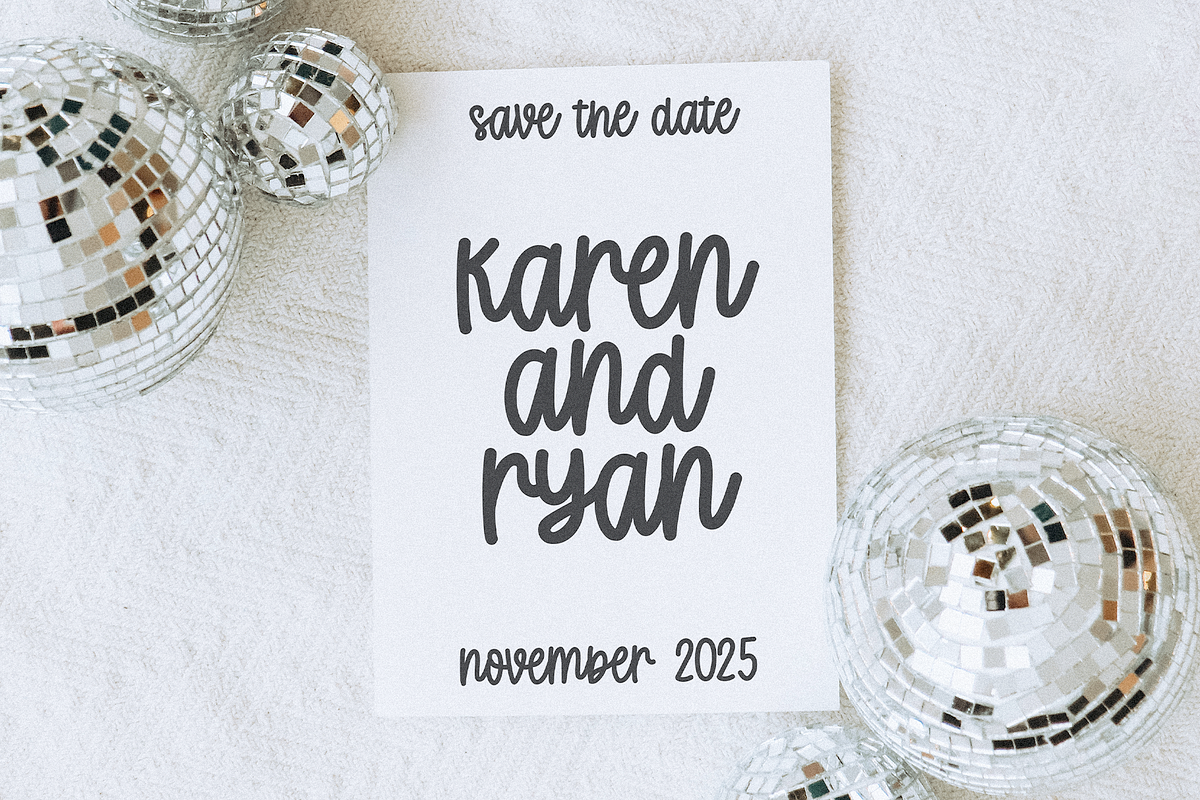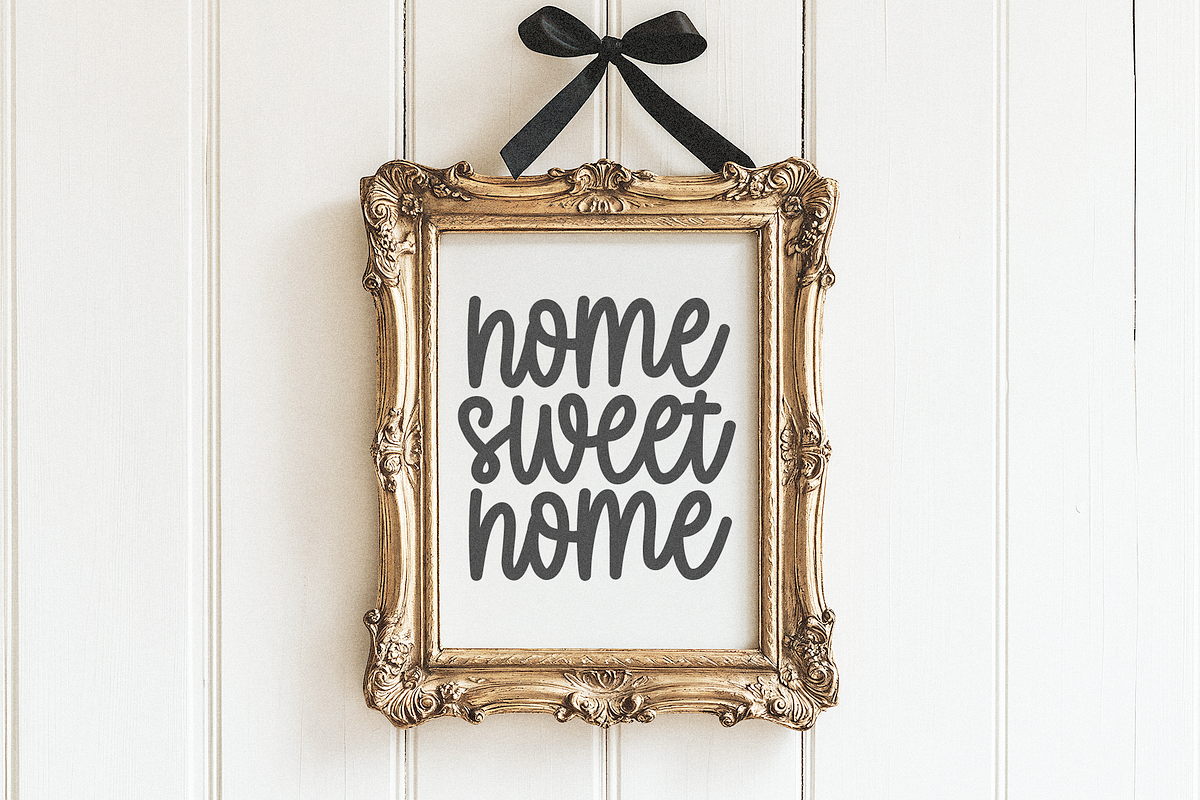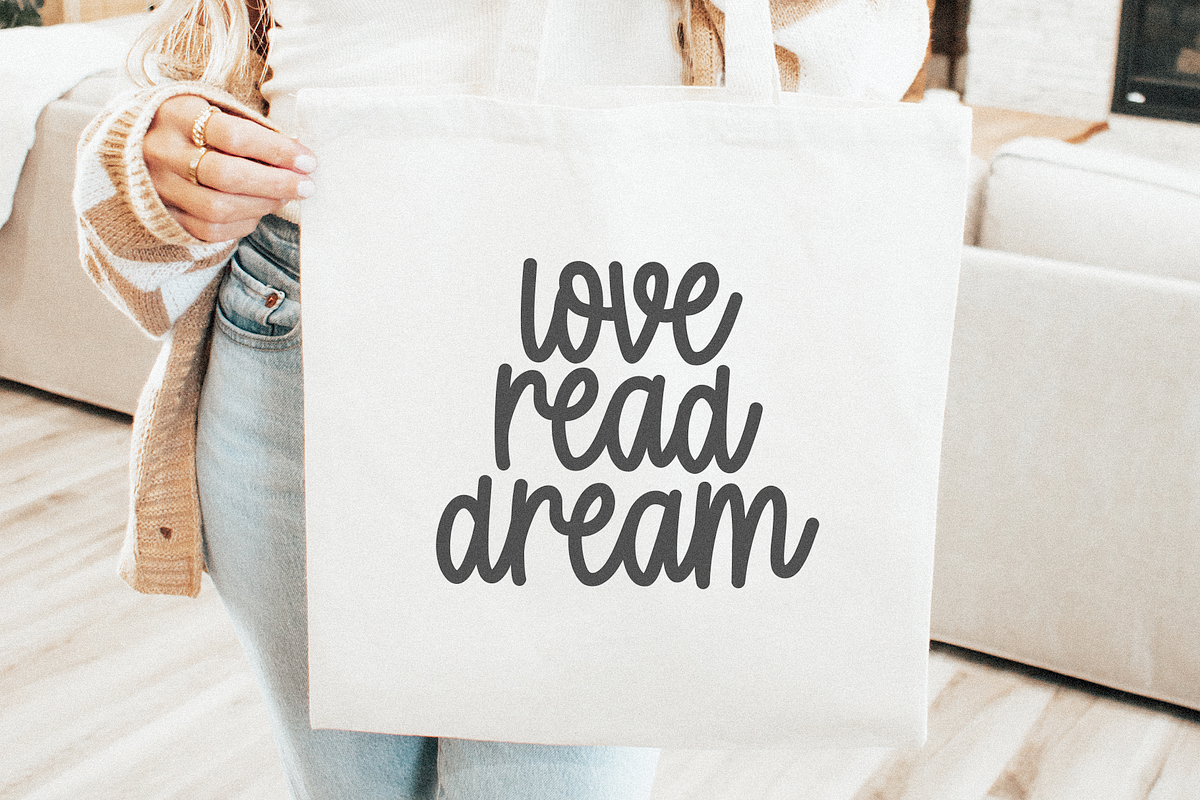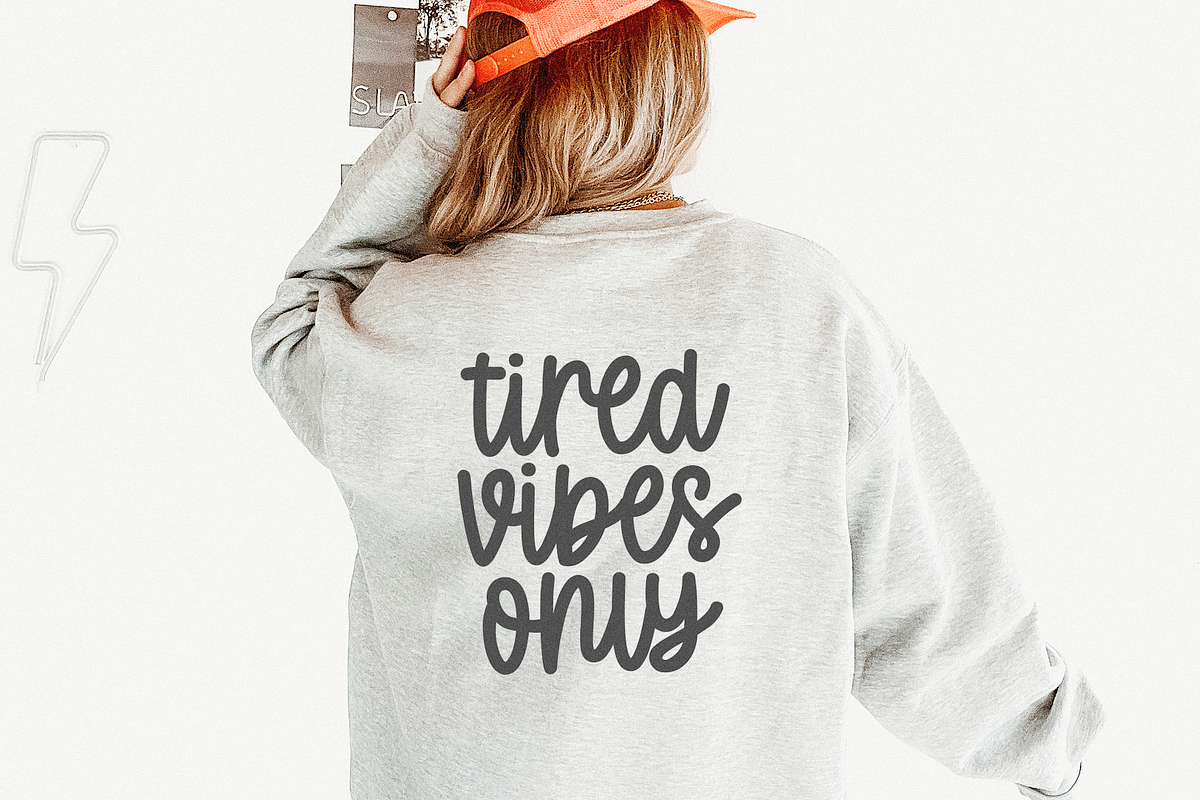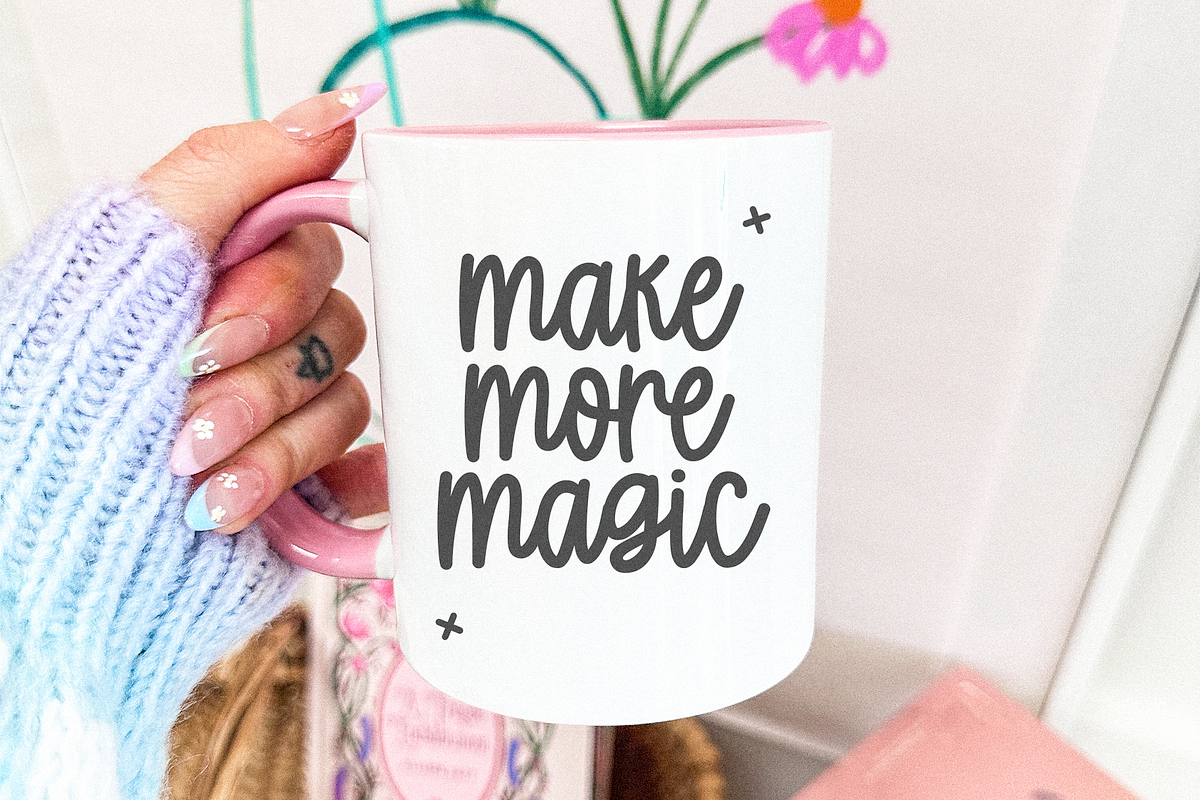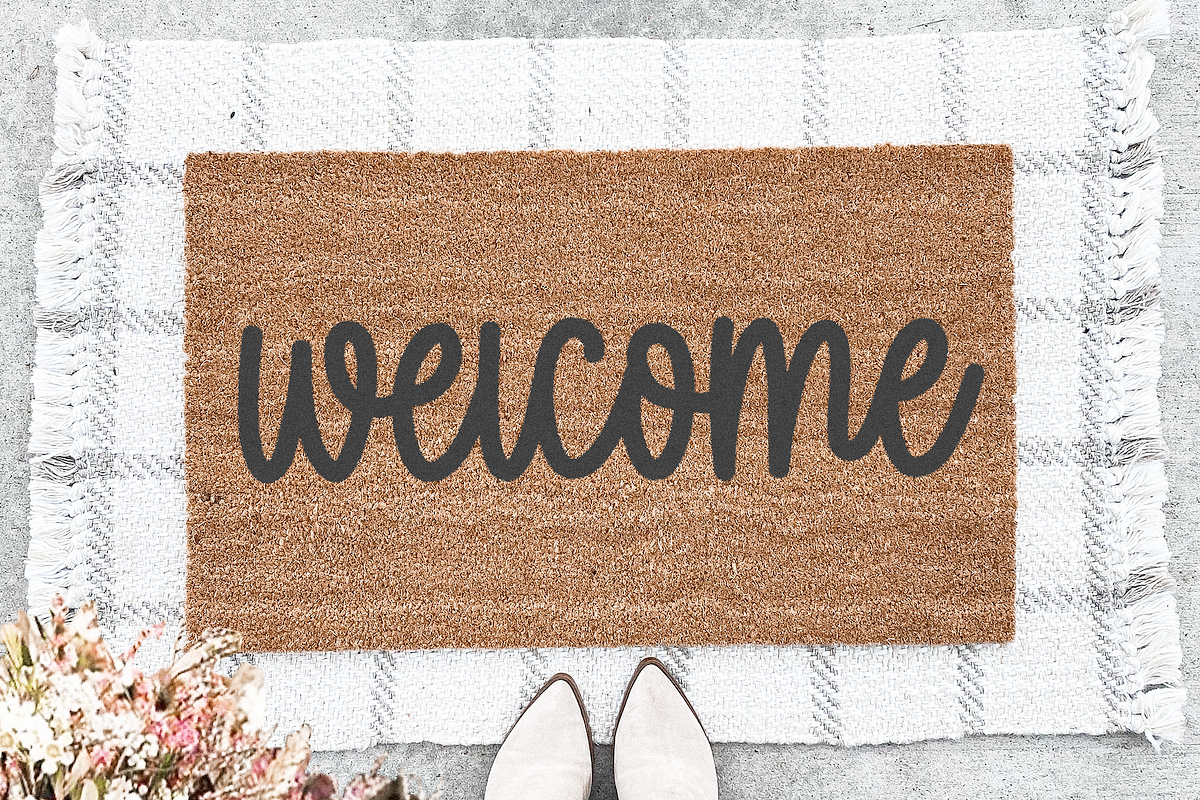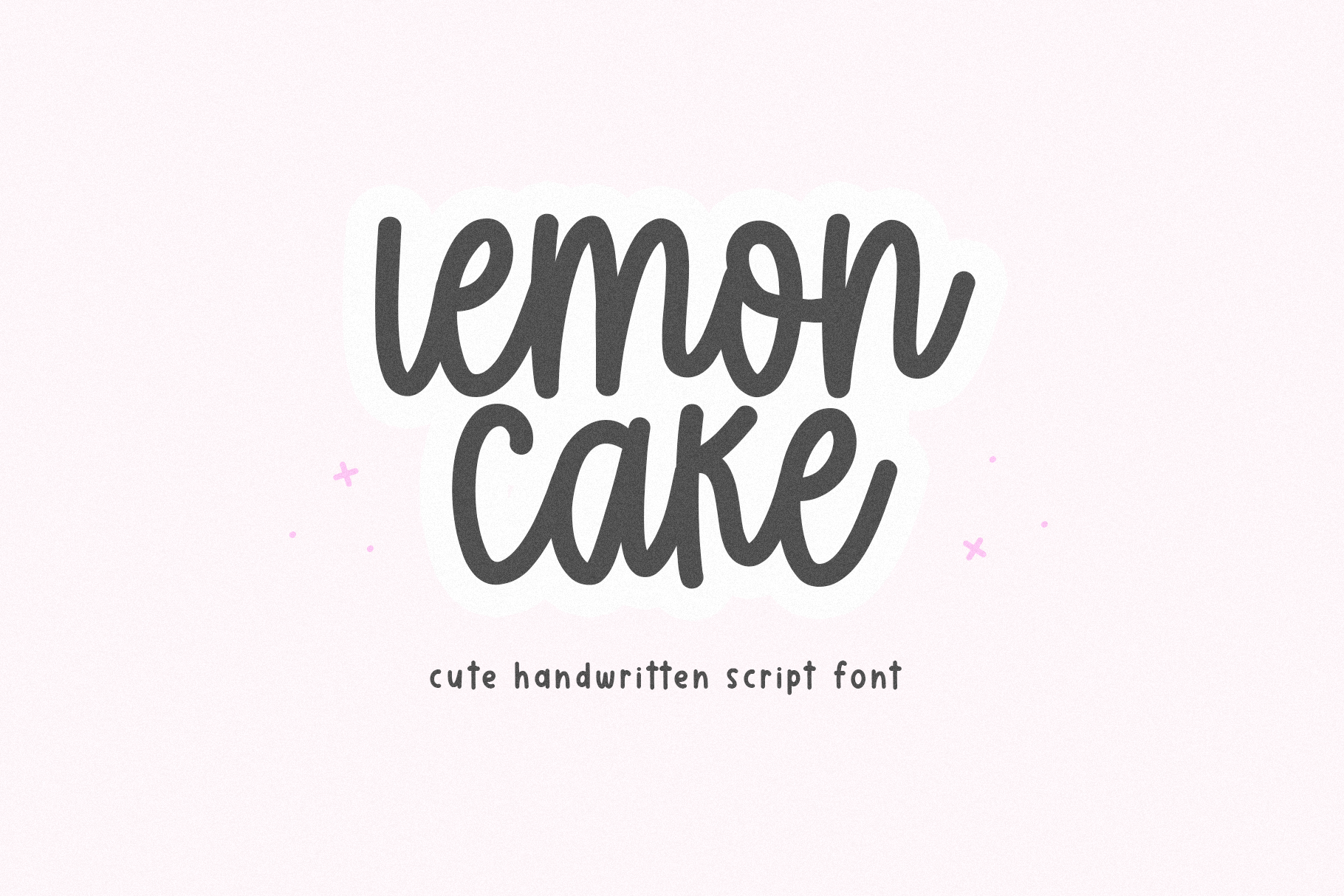
Lemon Cake | Cute Script Font
Lemon Cake is a cute handwritten script font.
This font is perfect for logos, cricut projects, names, shirts, svg files, teachers, goodnotes, planners and more!